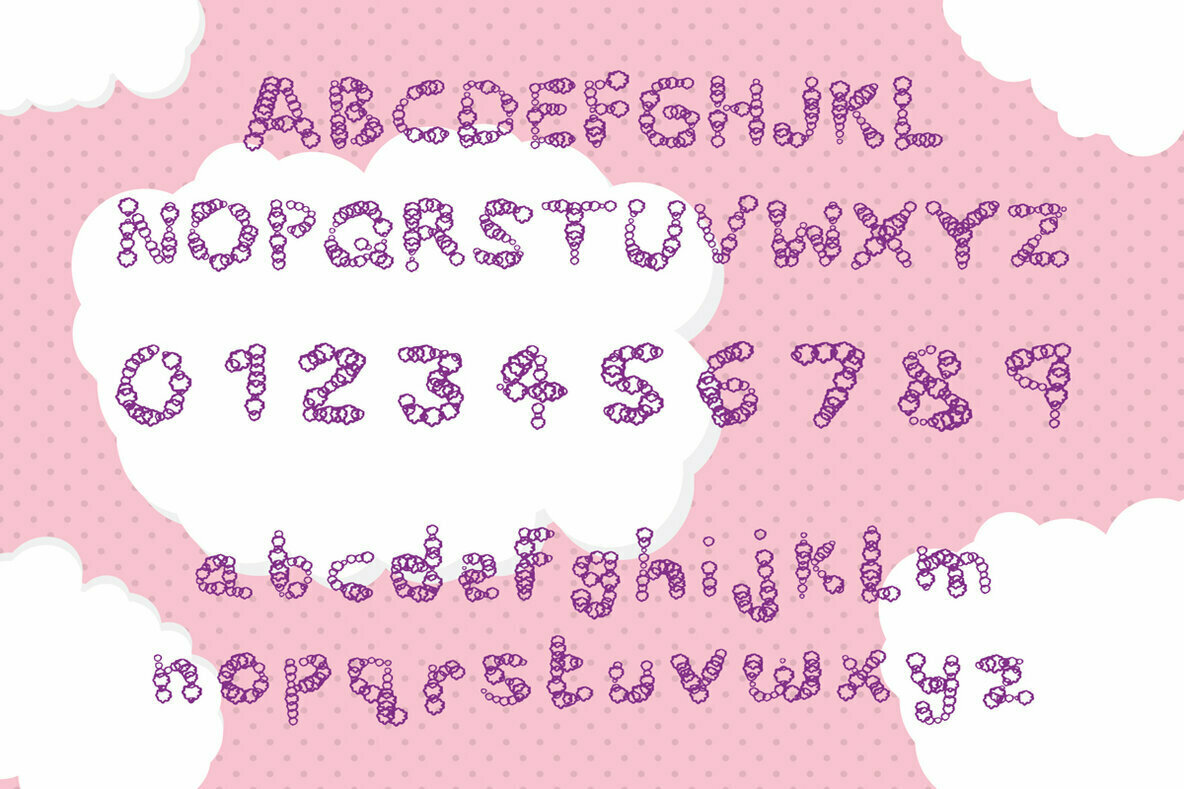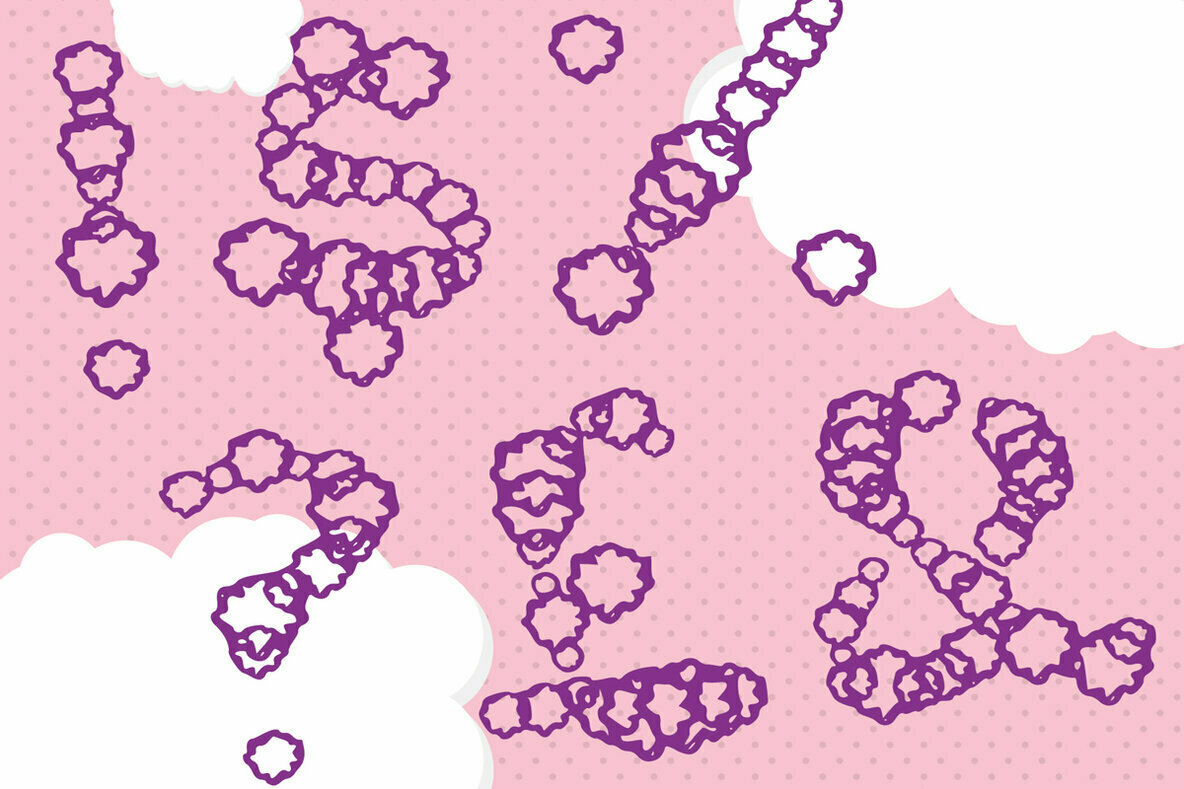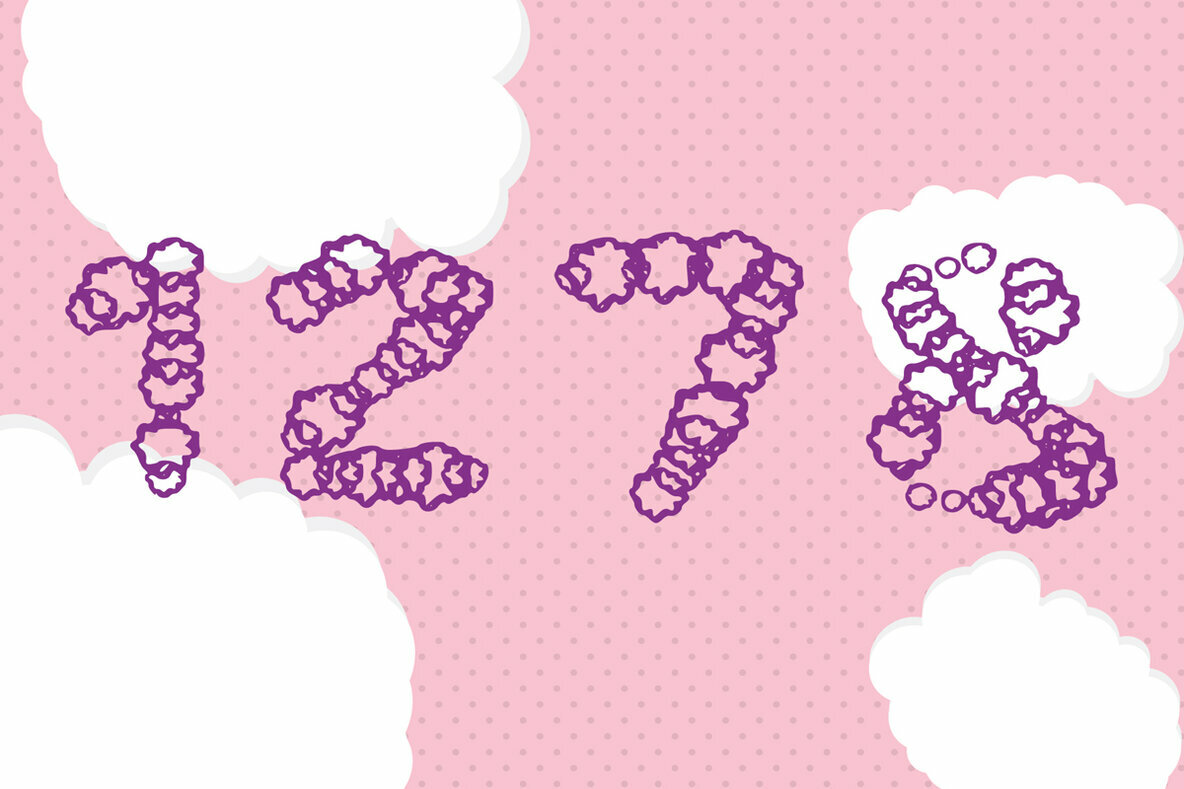
Little Puff Font
Little Puff
Little Puff is an incredibly interesting and unique display font. A little bit quirky, this font looks adept on a wide variety of contexts!